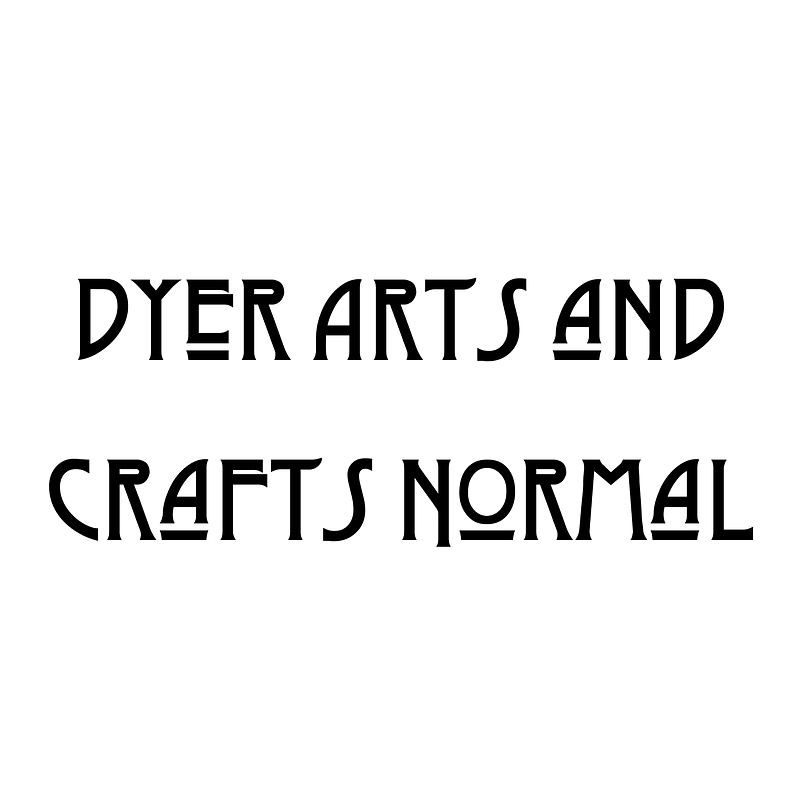
Dyer Arts And Crafts Font . Dyer arts & crafts is a fancy type font that can be used on any. Dyer arts & crafts font download is available free from fontget. Note the difference between capitals. This beautiful font comes with german umlauts and five attractive ligatures. This beautiful font comes with german umlauts and five attractive ligatures. Note the difference between capitals.